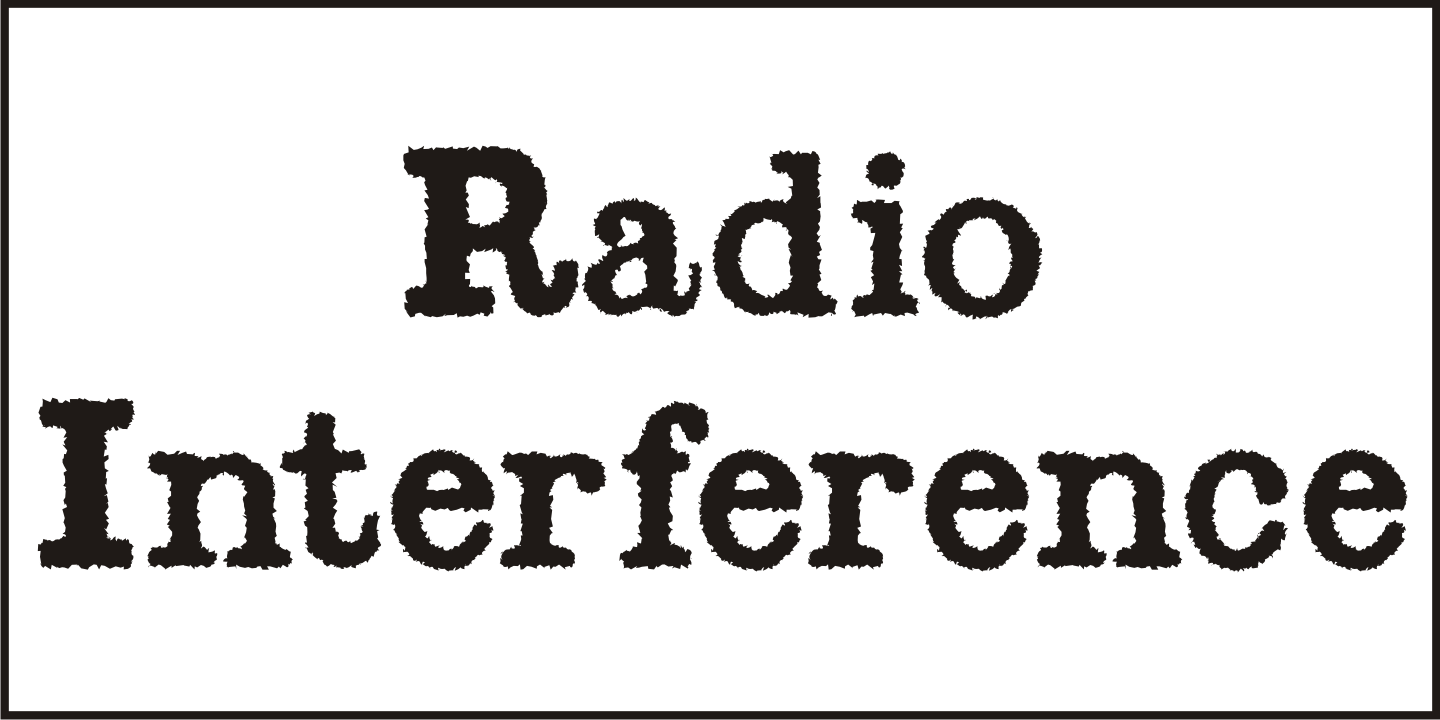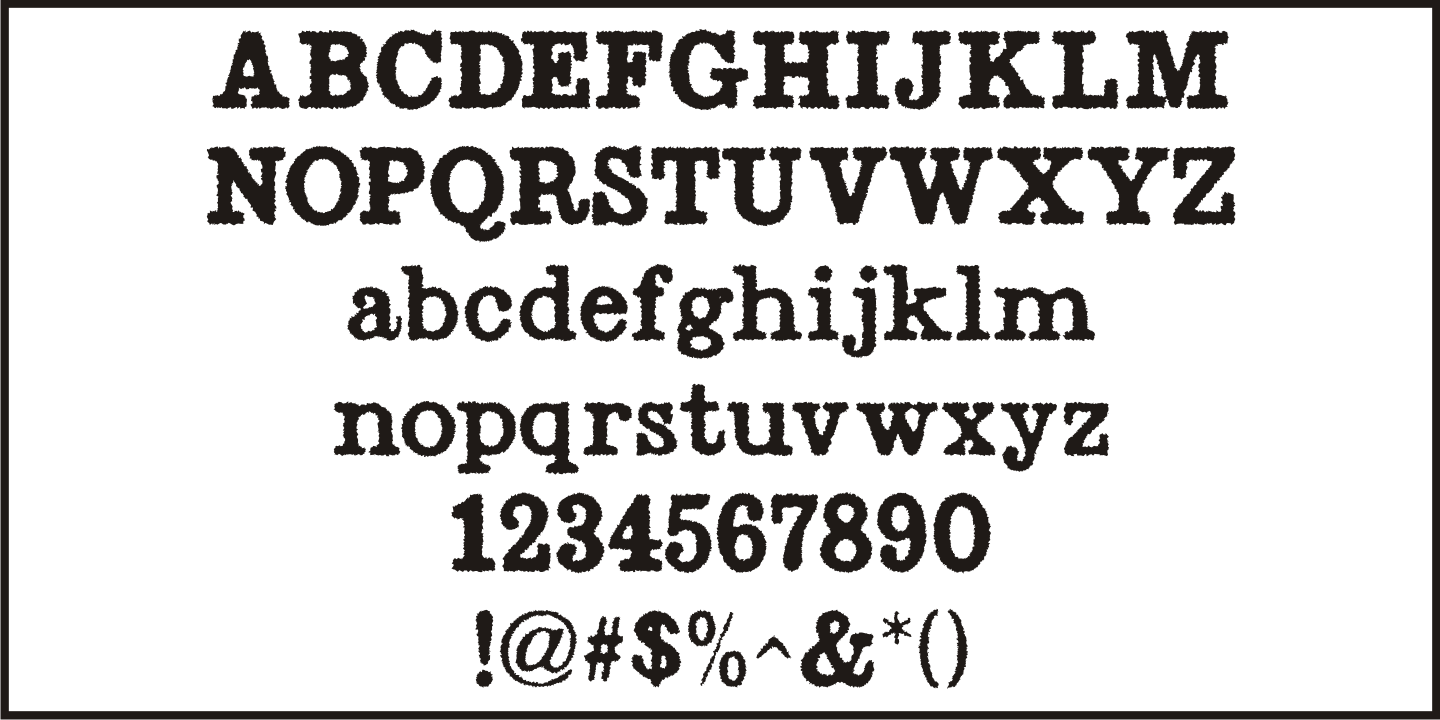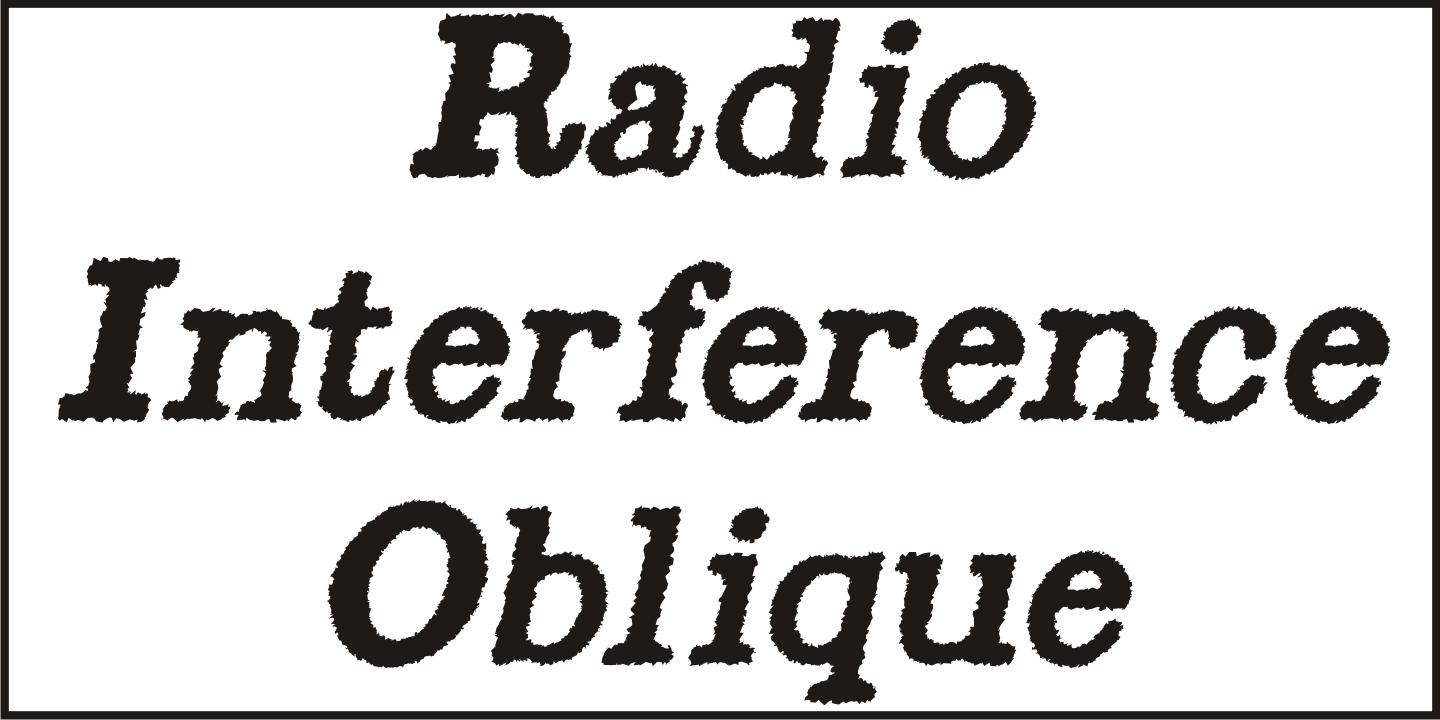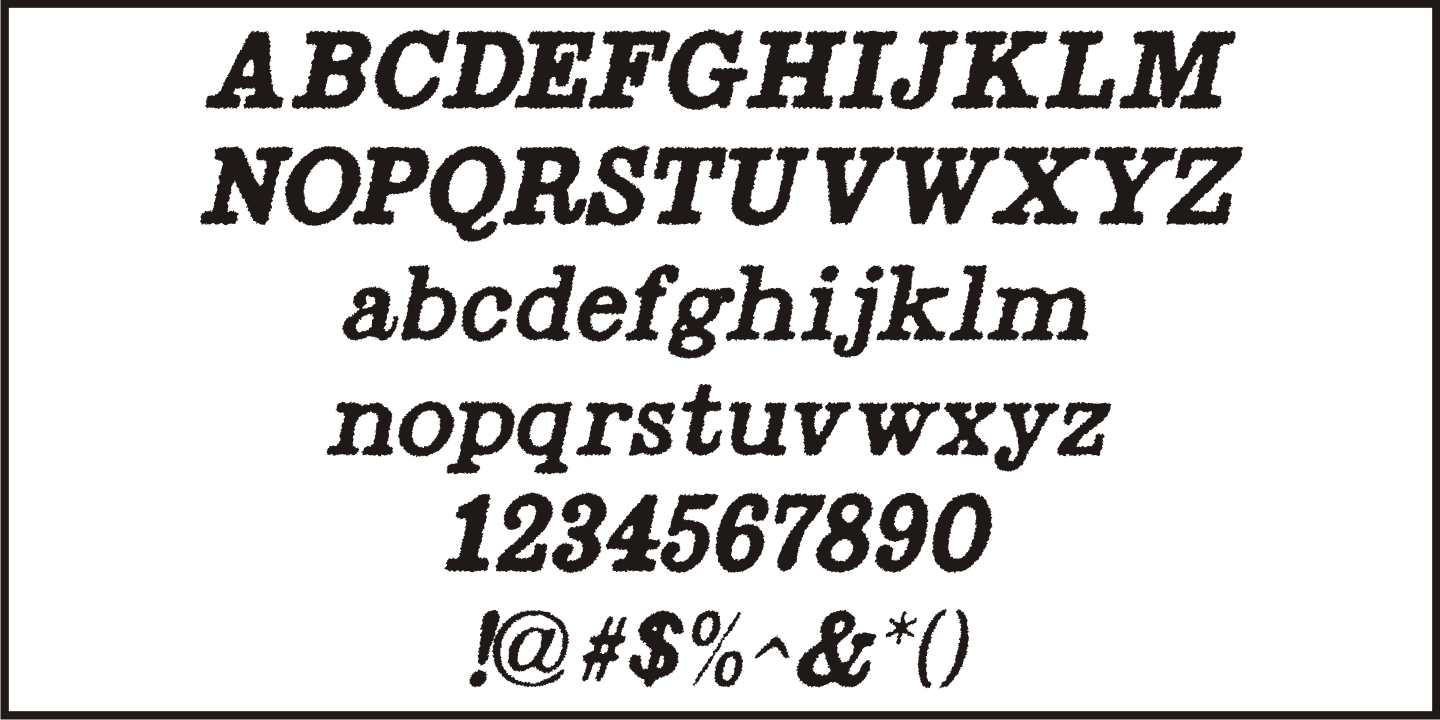
Radio Interference
The font Antique Slabserif JNL was run through a filter to create a design that looks like worn type at smaller settings or jaggedly distressed lettering in larger type heights. The end result is Radio Interference JNL, which is available in both regular and oblique versions.
Radio Interference JNL Regular by Jeff Levine Fonts